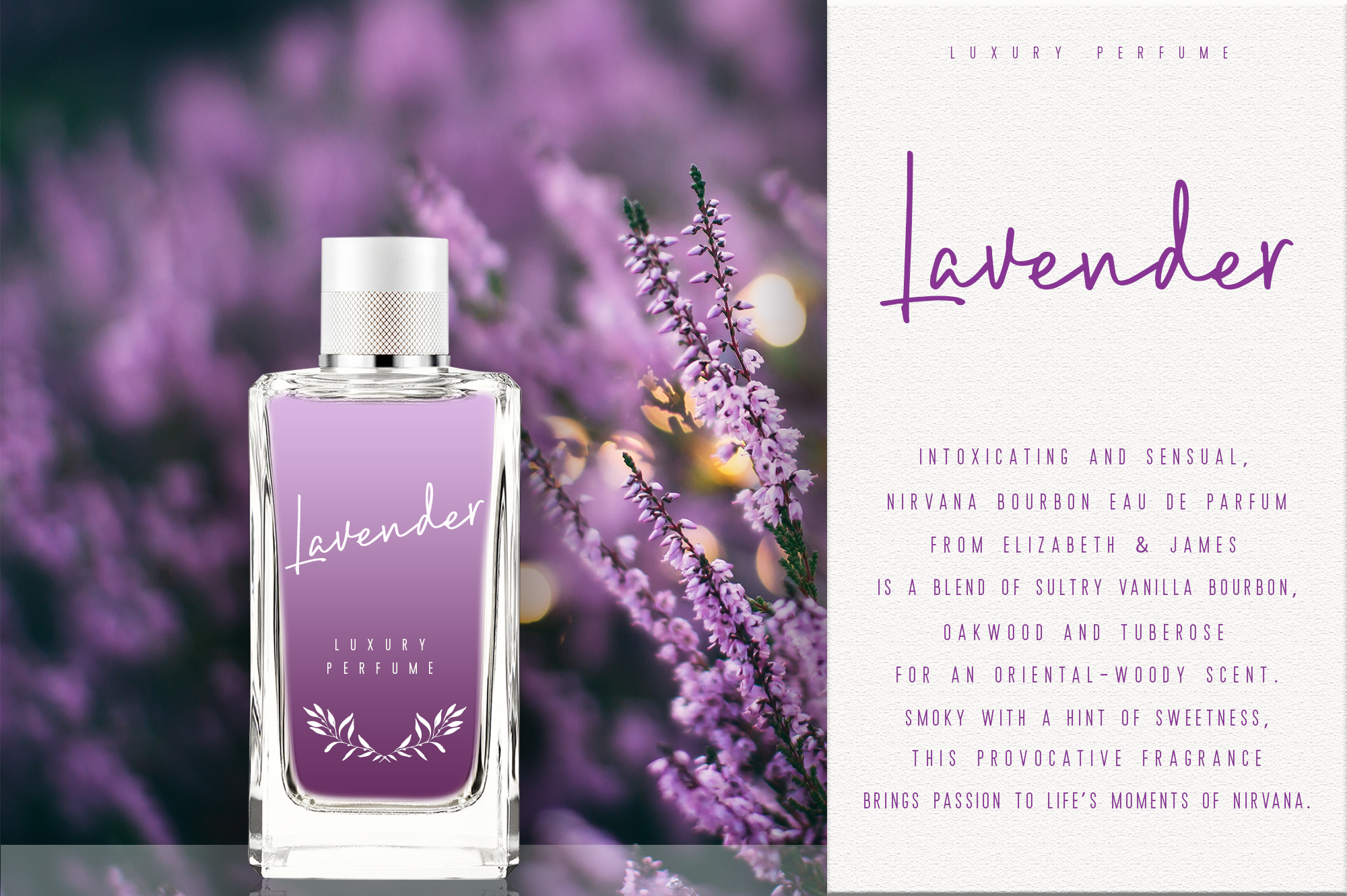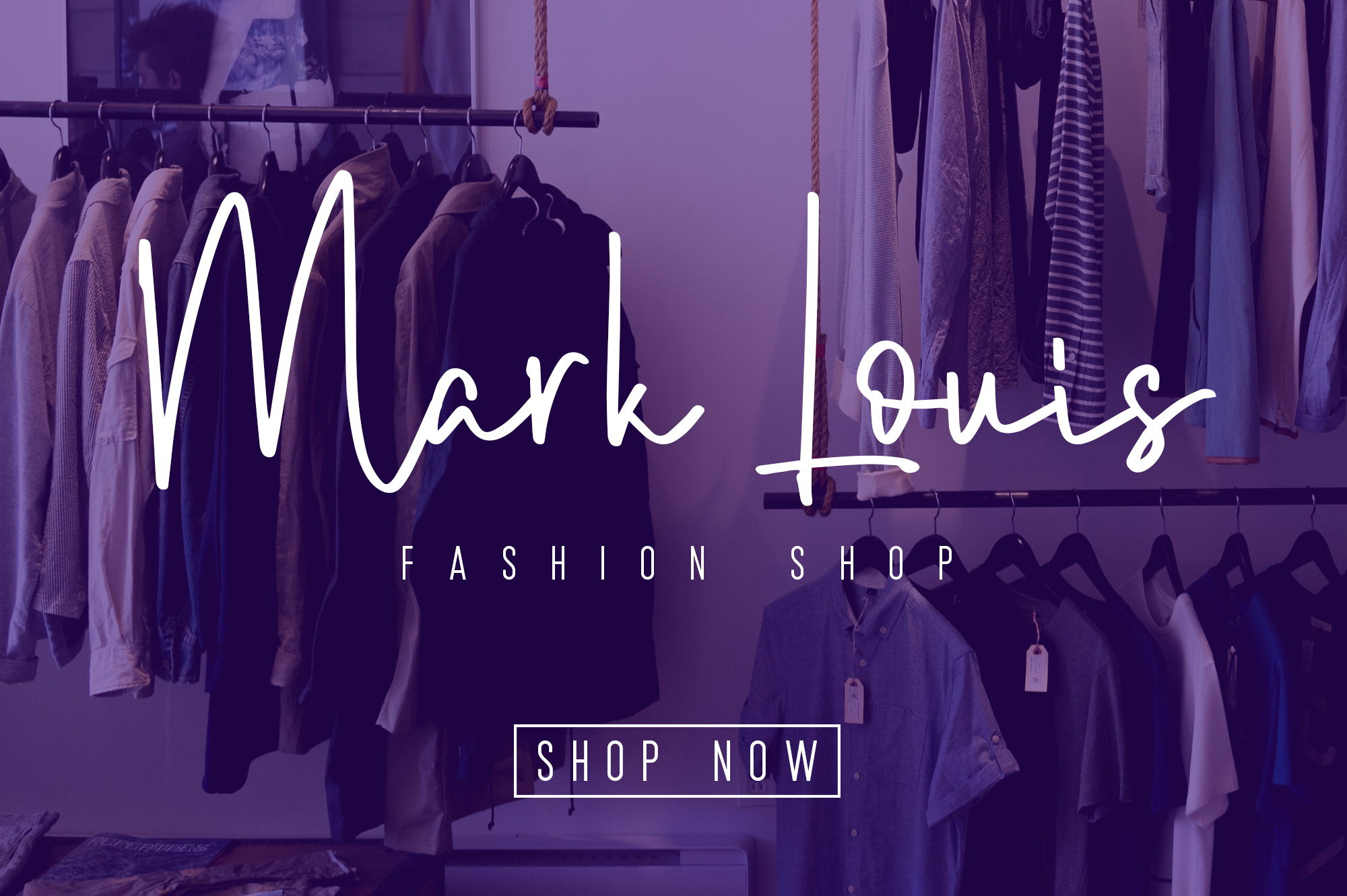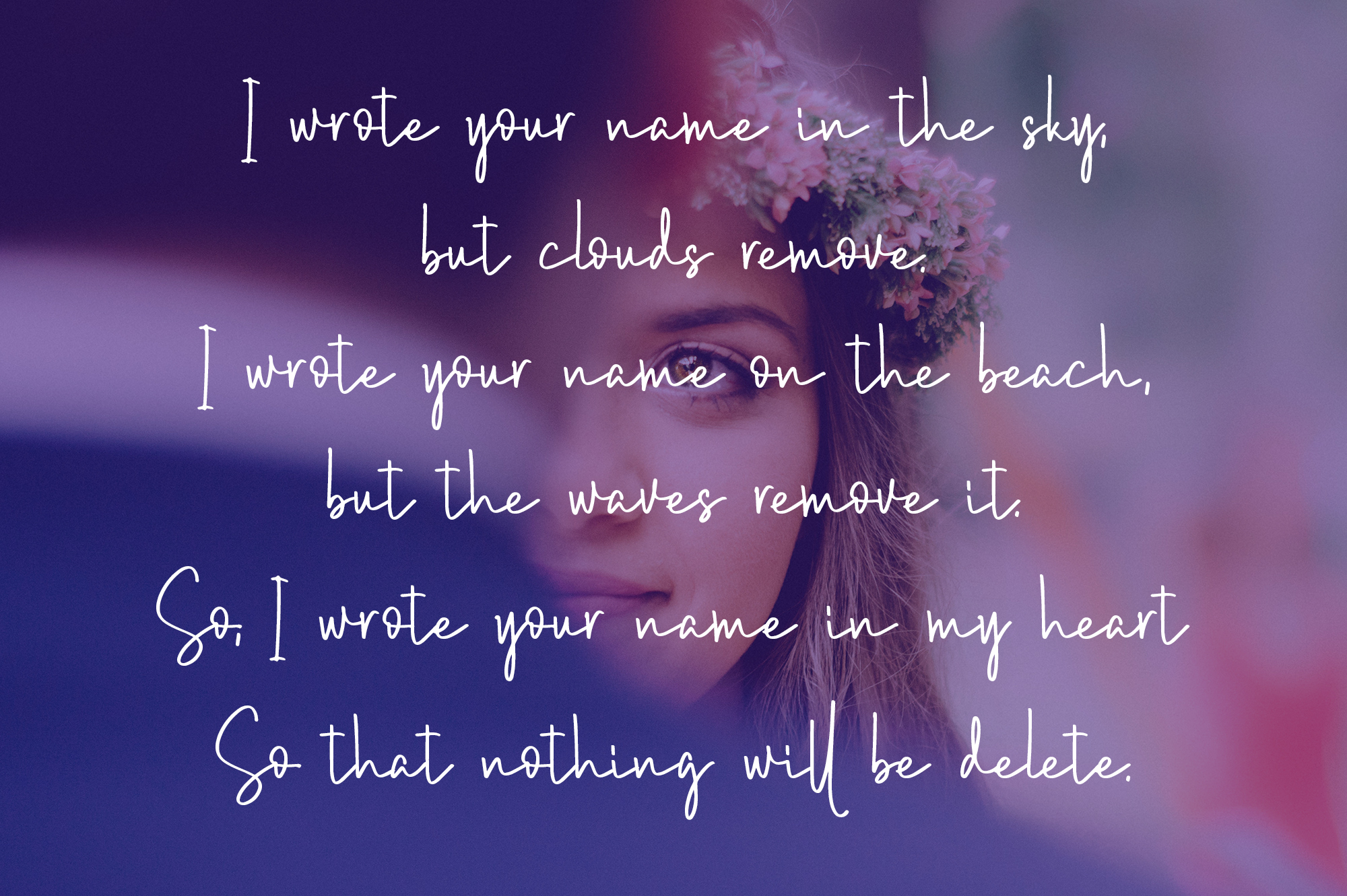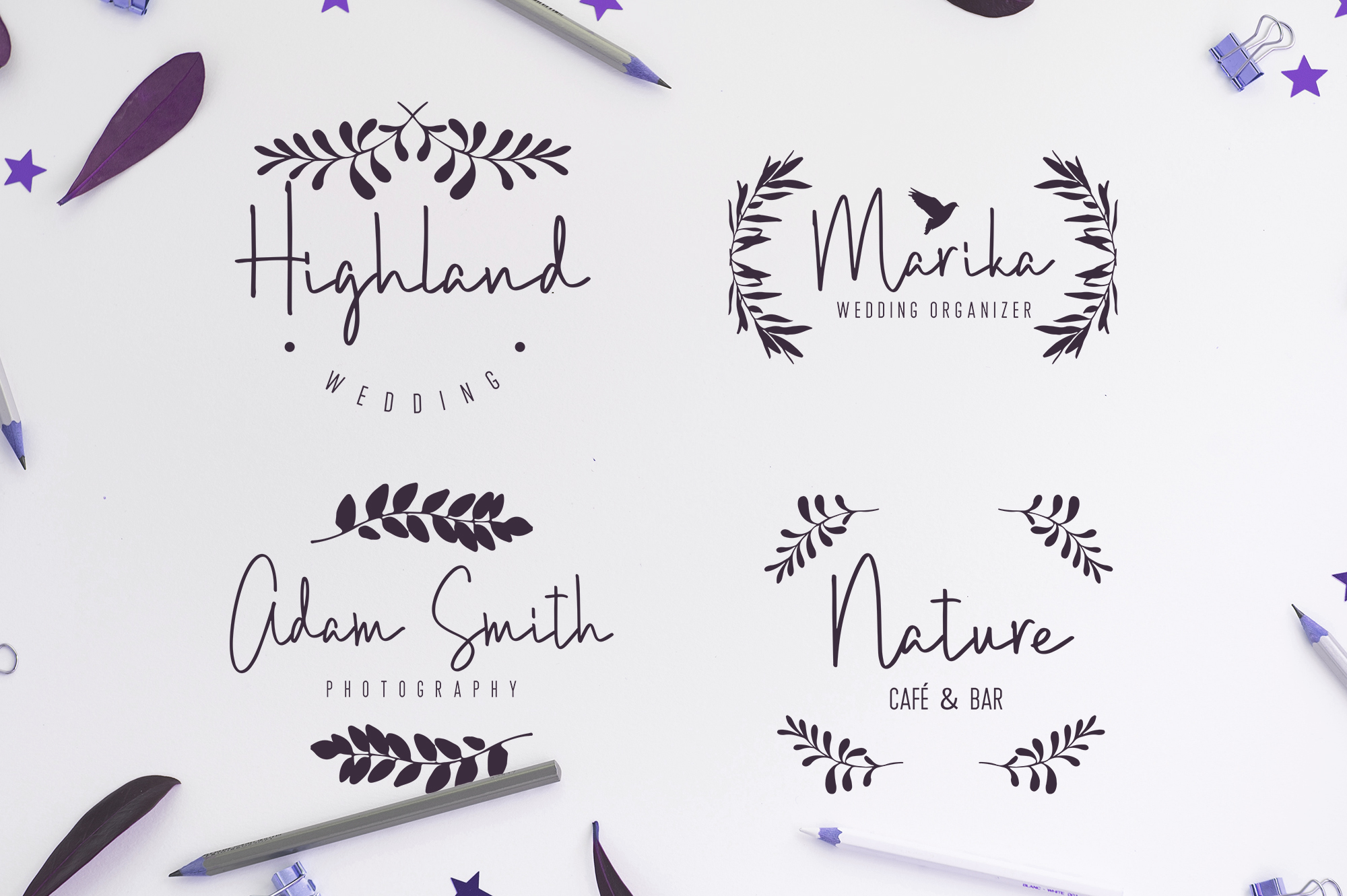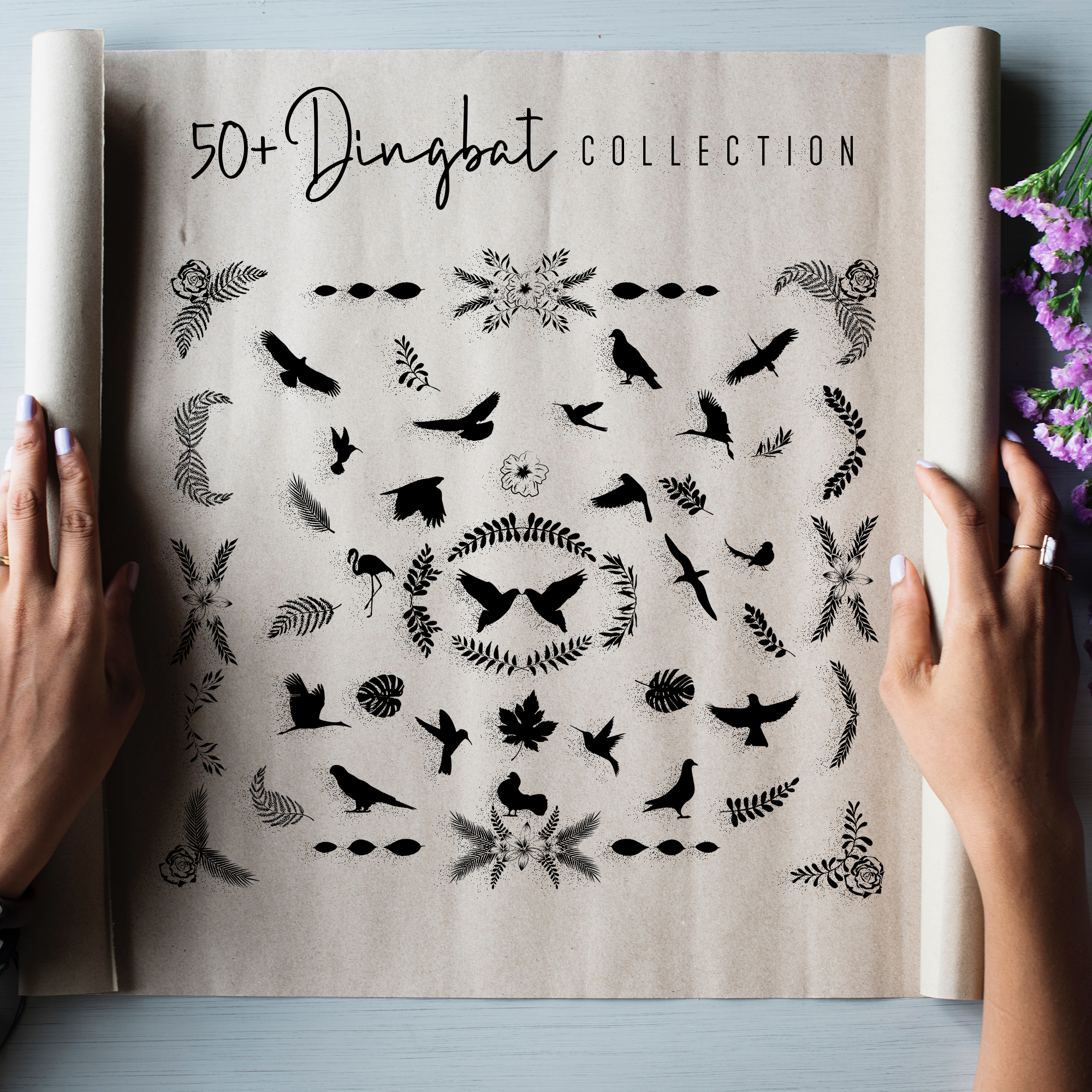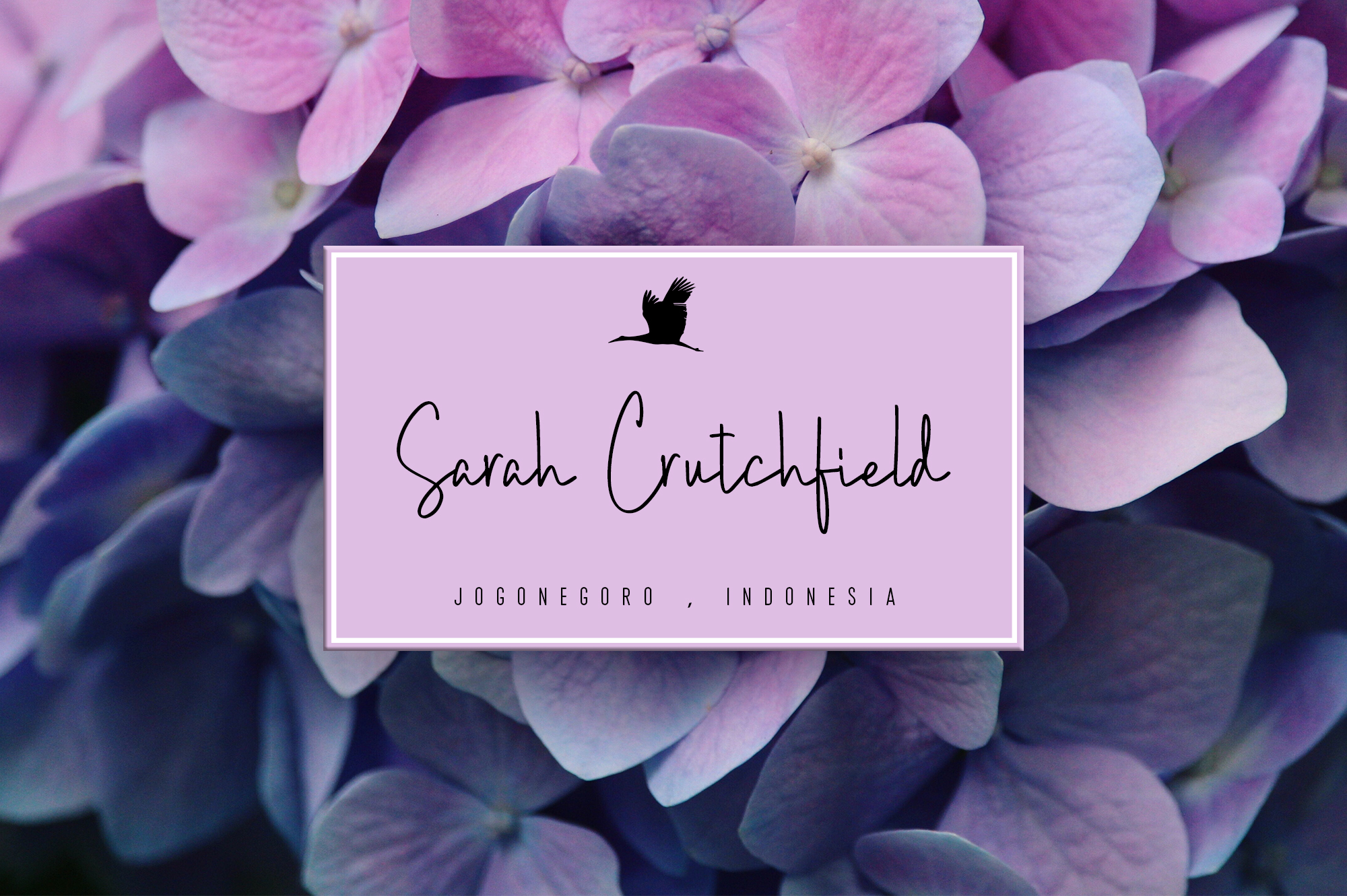
Introducing Brush Wayne Duo Font: Elevate Your Designs with a Modern Twist
Are you tired of using the same old fonts in your designs? Look no further! Brush Wayne Duo Font is here to revolutionize your creative projects with its fun and modern approach. This fantastic font duo combines a signature script style with a sans serif font, making it perfect for designers and crafters who want to add a touch of personality to their work.
The Perfect Pairing: Signature Script and Sans Serif
Brush Wayne Duo Font consists of two complementary fonts that work seamlessly together. The signature script font boasts elegant, cursive lines that add a touch of sophistication to any design. Meanwhile, the sans serif font provides a clean and modern contrast, creating a beautiful visual balance. Whether you’re designing a logo, invitation, or social media graphic, this font duo has got you covered.
Take Your Designs to the Next Level with Dingbats
What really sets Brush Wayne Duo Font apart is the inclusion of over 50 dingbats as supporting components. These delightful graphics can be used to add an extra layer of visual interest to your designs, making them truly stand out. From decorative borders to icons and shapes, the dingbats provided with Brush Wayne Duo Font will help you create a cohesive and fully realized style that’s uniquely yours.
With Brush Wayne Duo Font, the design possibilities are endless! Here are just a few ideas to get you started:
- Create stunning invitations and party decor with the signature script font and matching dingbats.
- Design eye-catching logos and branding materials that showcase your personality and style.
- Develop a cohesive social media aesthetic using the sans serif font and dingbats.
- Add a touch of elegance to your packaging designs with the signature script font.
Why Choose Brush Wayne Duo Font?
So, what makes Brush Wayne Duo Font the perfect choice for designers and crafters? Here are just a few reasons:
- Unique and modern style: Brush Wayne Duo Font offers a fresh and contemporary take on traditional font styles.
- Versatility: The font duo can be used for a wide range of design projects, from logos and branding to invitations and social media graphics.
- Time-saving: With the included dingbats, you can quickly and easily add visual interest to your designs without having to search for additional graphics.
- Font duo: signature script and sans serif
- Over 50 dingbats as supporting components
- Perfect for logos, branding, invitations, social media graphics, and more
- Unique and modern style